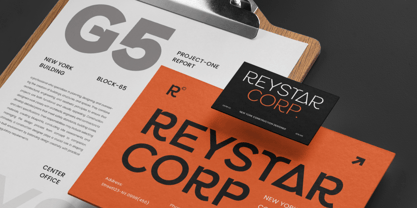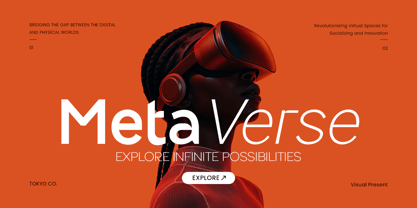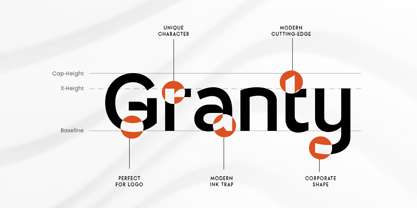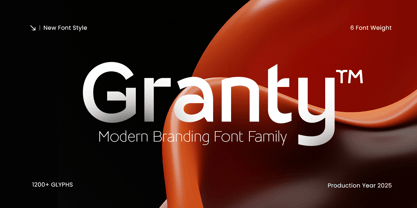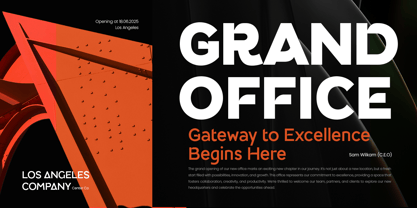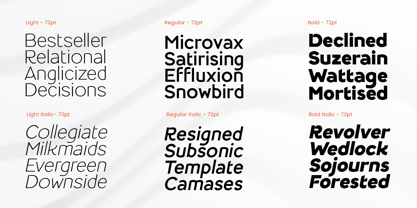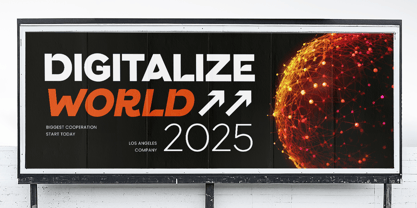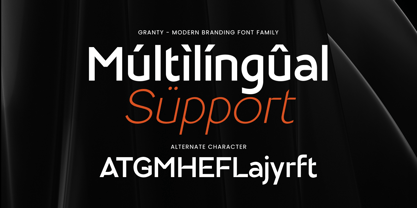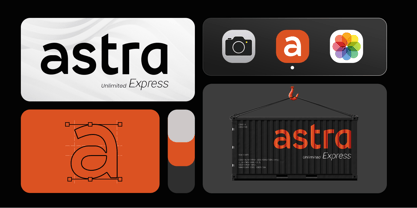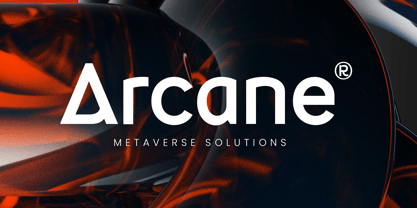
GRANTY is a modern branding font family designed to deliver clarity, confidence, and sophistication across all visual identities. Built with clean geometry and balanced proportions, it’s perfect for corporate brands, digital products, packaging, and editorial layouts that value professionalism and minimal beauty.
The family includes multiple weights, offering flexibility for headlines, body text, and logo applications. Whether you’re building a strong brand identity or crafting refined design compositions, GRANTY maintains consistency and elegance in every context.
With its timeless structure and modern tone, GRANTY bridges the gap between creativity and functionality — ideal for designers seeking a versatile typeface family for all branding needs.
Font Features
Complete font family with multiple weights for versatile design
Perfect for corporate, editorial, and modern branding projects
Clean and geometric sans serif construction for professional appeal
Excellent readability for both print and screen applications
Ideal for logos, packaging, magazines, and UI design
Uppercase, lowercase, numerals, and punctuation included
OpenType features for advanced typographic control
Multilingual Support
Supports: Afrikaans, Albanian, Asu, Basque, Bemba, Bena, Breton, Chiga, Cornish, Dutch, English, Estonian, Filipino, Finnish, Friulian, Galician, German, Gusii, Indonesian, Irish, Italian, Kabuverdianu, Kalenjin, Kinyarwanda, Luo, Luxembourgish, Luyia, Machame, Makhuwa-Meetto, Makonde, Malagasy, Manx, Morisyen, North Ndebele, Nyankole, Oromo, Portuguese, Quechua, Romansh, Rombo, Rundi, Rwa, Samburu, Sango, Sangu, Scottish Gaelic, Sena, Shambala, Shona, Soga, Somali, Spanish, Swahili, Swedish, Swiss, and more.
Elevate your visual identity with GRANTY – the ultimate modern font family for professional, minimal, and stylish branding. ✨